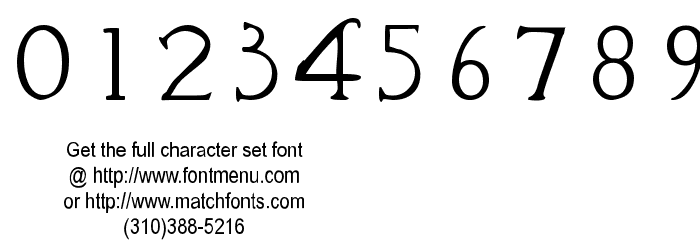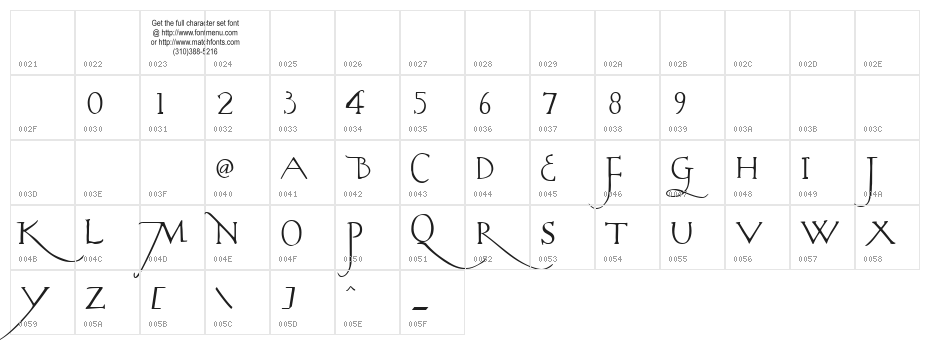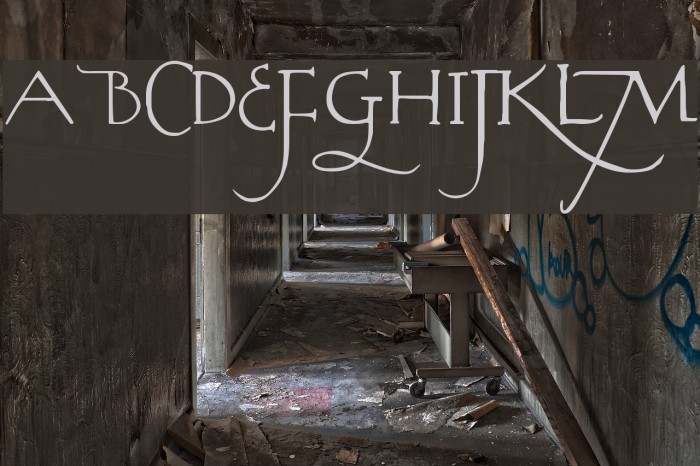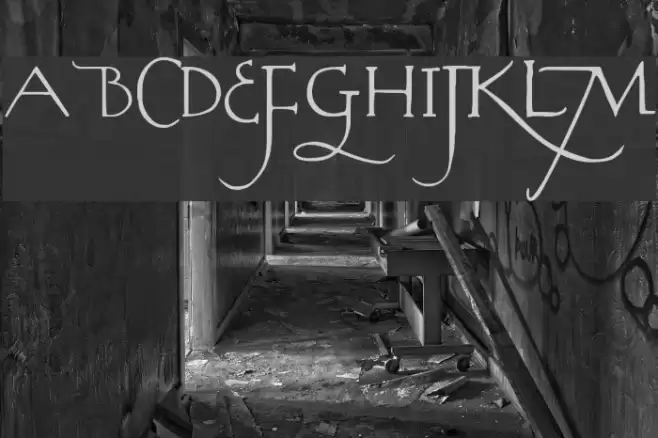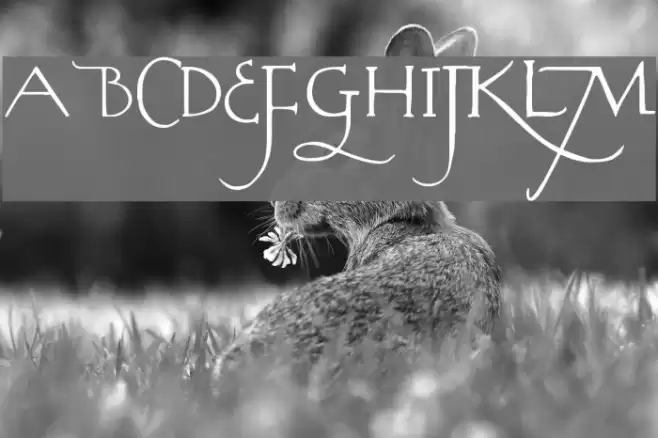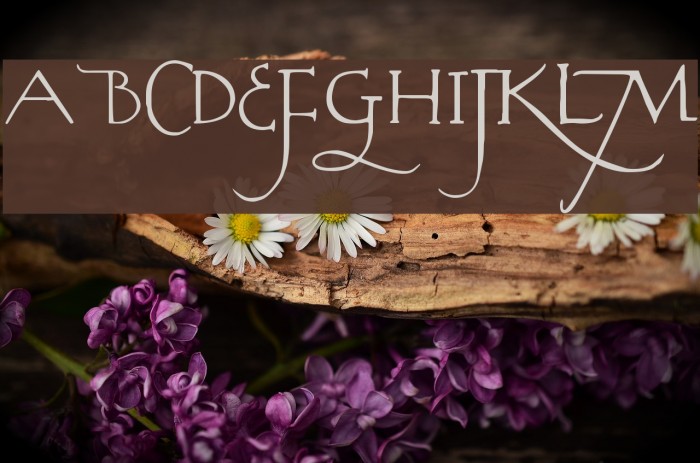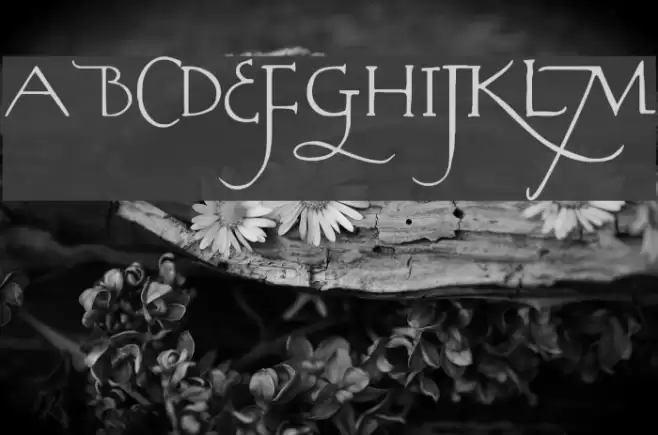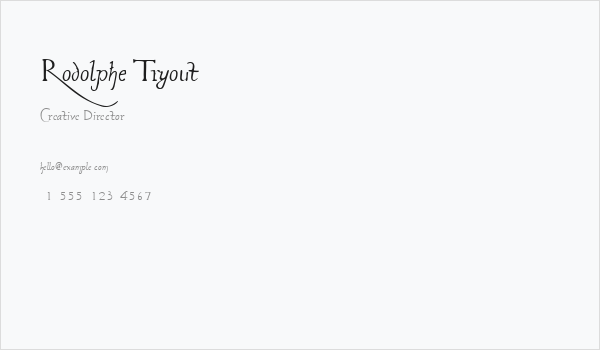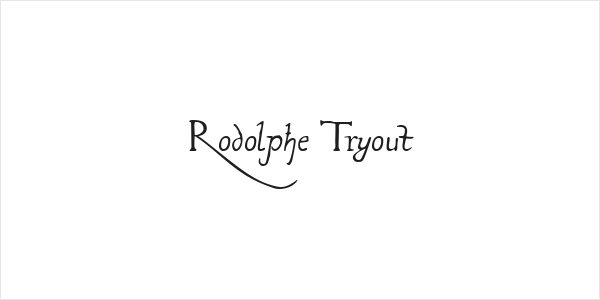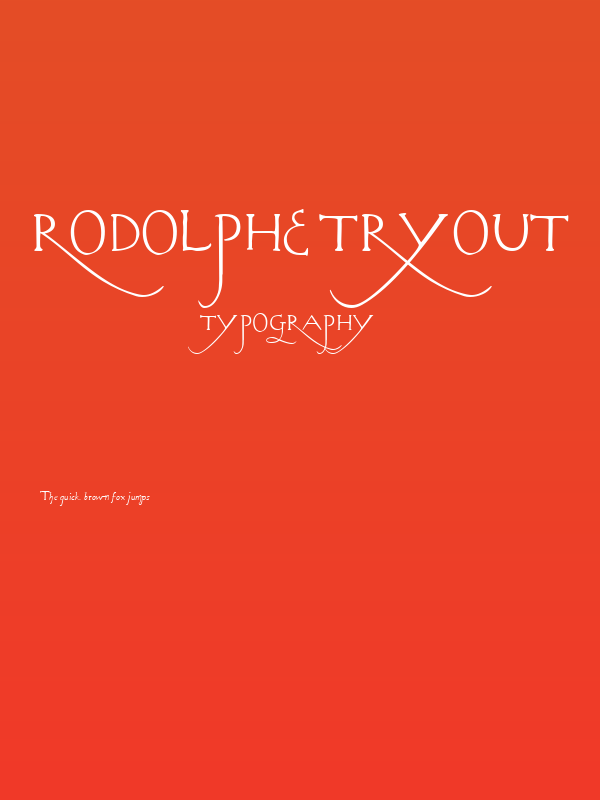
Rodolphe Tryout Font
Rodolphe Tryout Description
This font exhibits a unique and artistic flair, characterized by its elegant and flowing letterforms. The uppercase letters feature intricate curves and extended strokes, giving them a dramatic and sophisticated appearance. The lowercase letters maintain a consistent style, with a slightly more subdued elegance. The numerals are distinct and maintain the artistic style of the alphabet, with some numbers featuring unique flourishes. The special characters are designed to complement the overall aesthetic, ensuring a cohesive look across all text. This font is ideal for projects that require a touch of elegance and creativity.